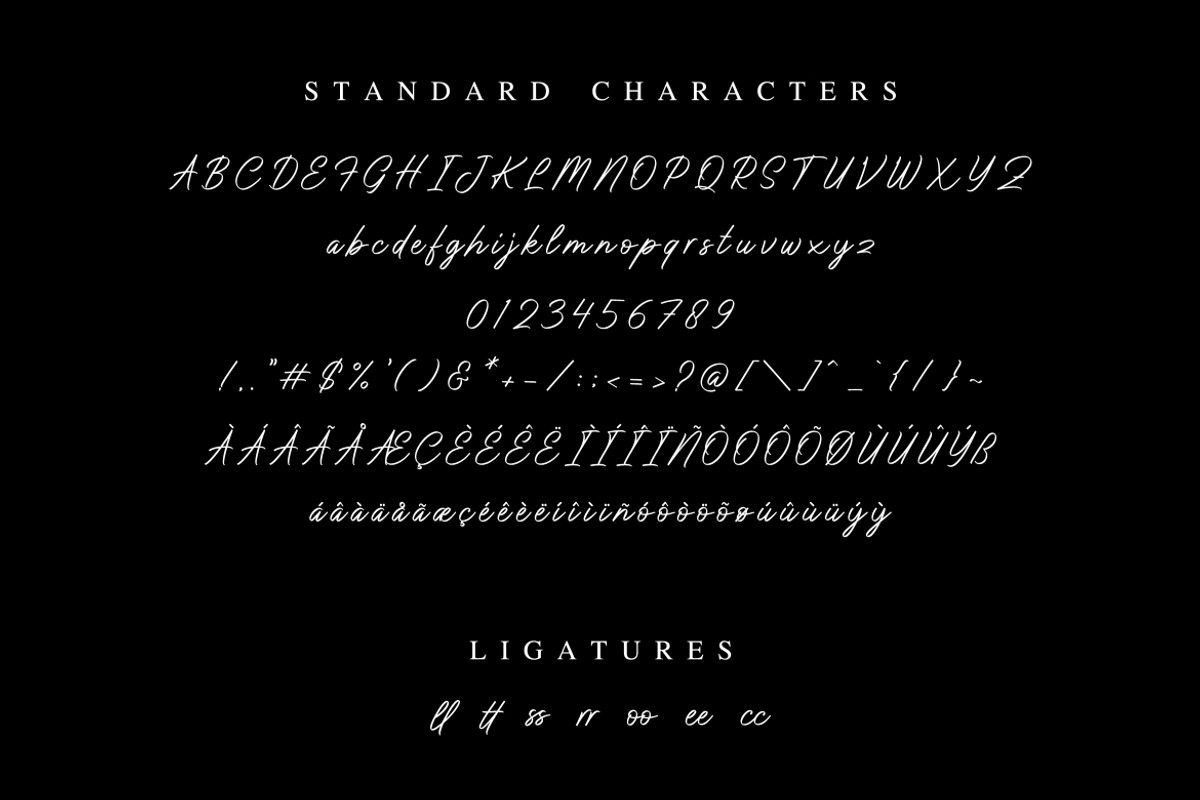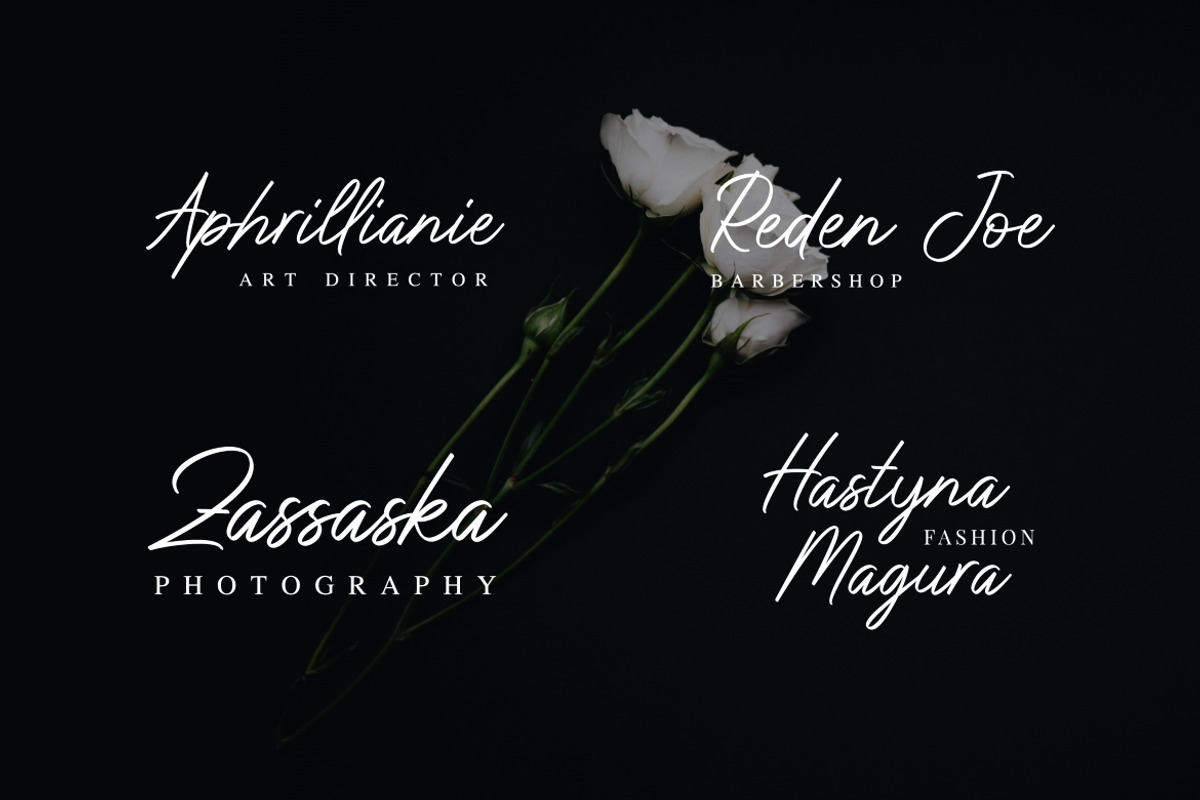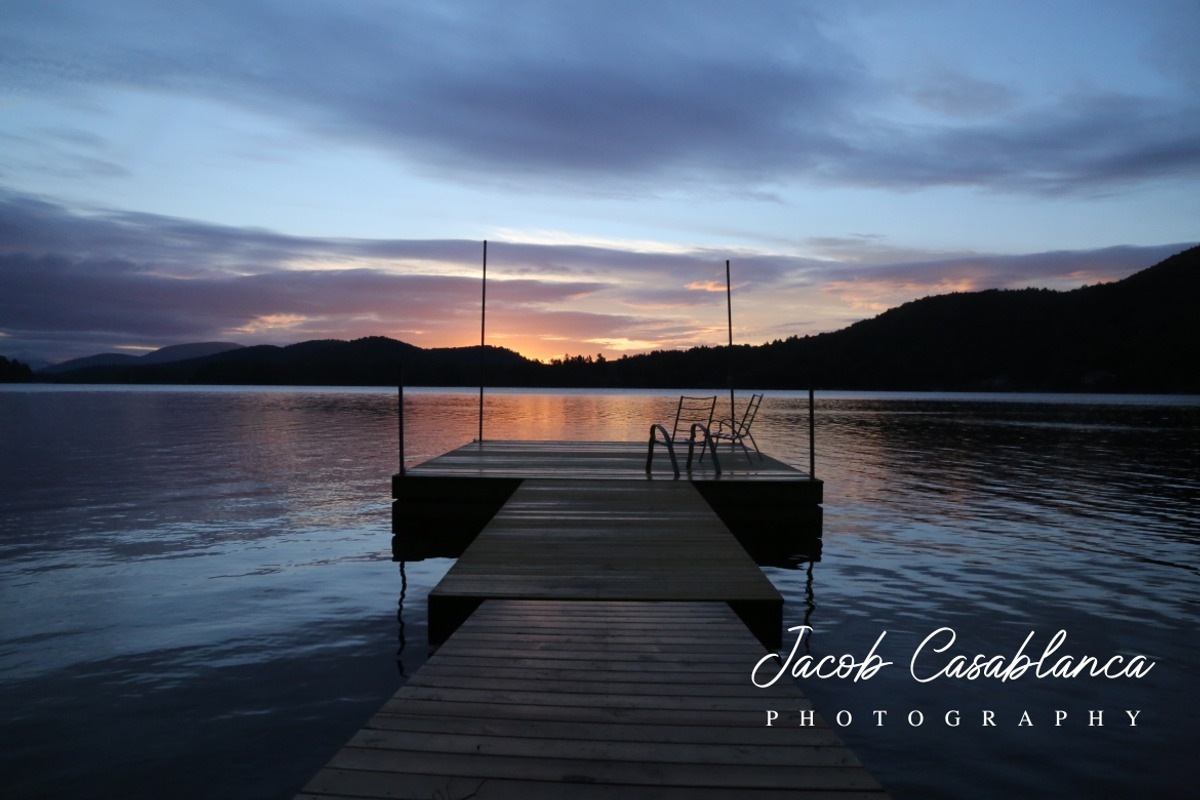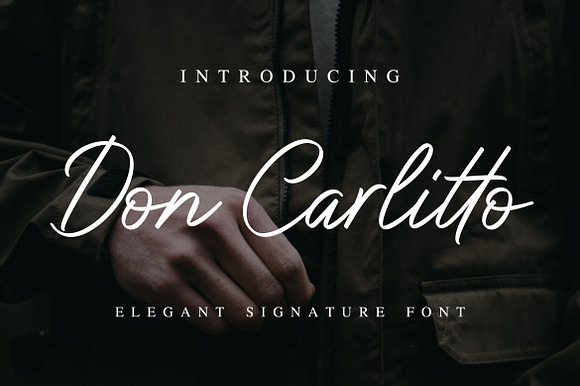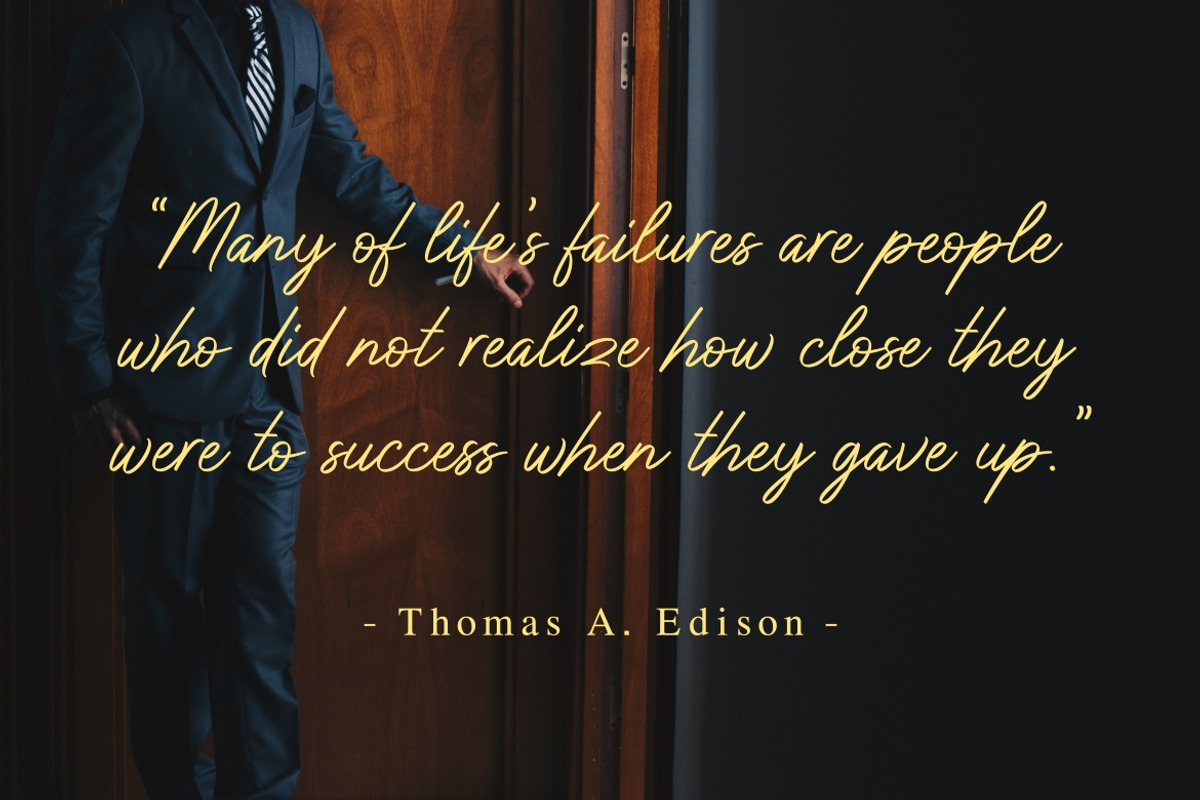
Don Carlitto - Signature Font
Don Carlitto is a elegant signature font that we crafted for specific category : business, fashion, product packaging, diy, decoration and label
The name is inspired by spanish mafia, he really respected by people because he want to do good things by steal from the rich and the government. Yes, I have watched Narcos and Money Heist on netflix.